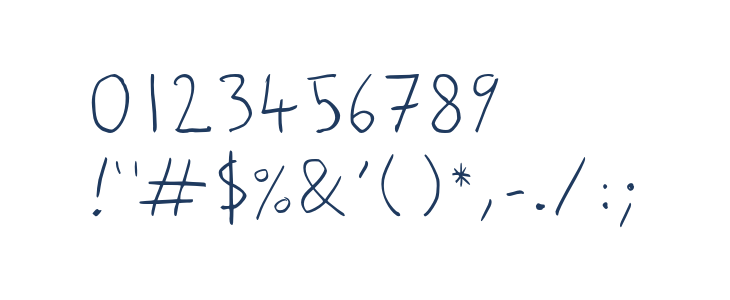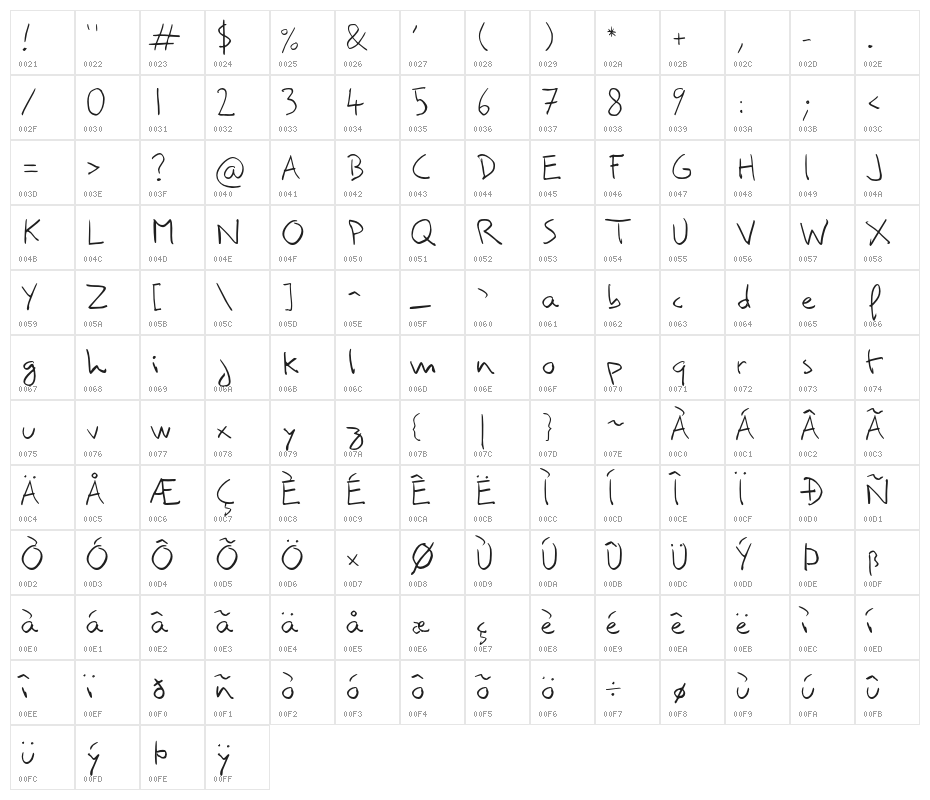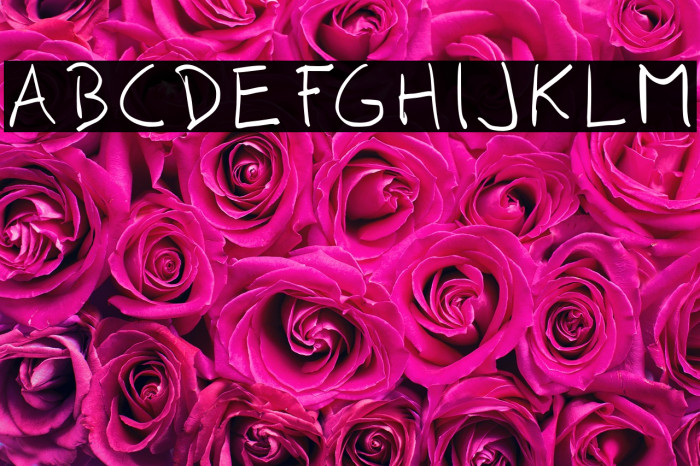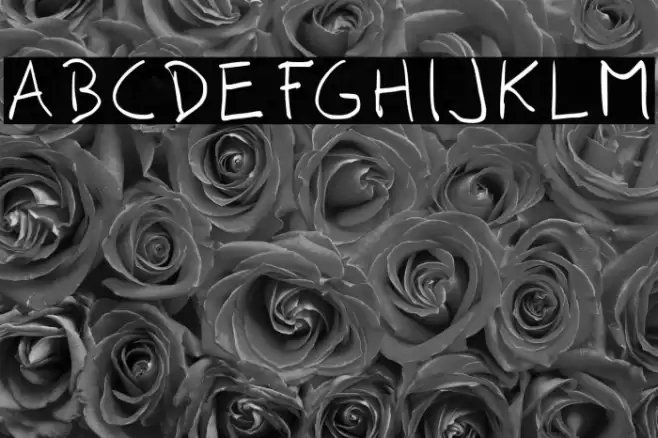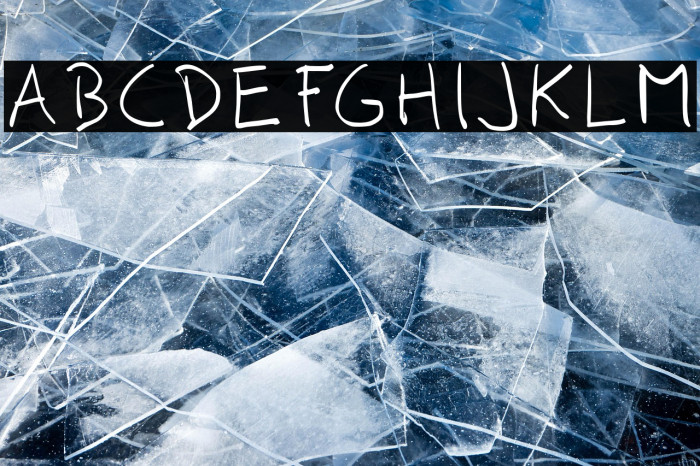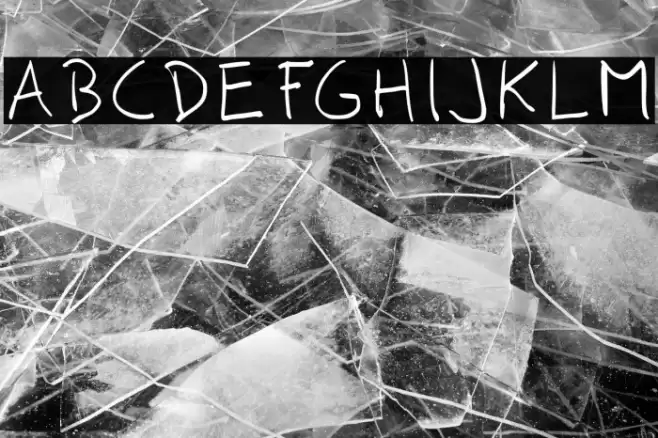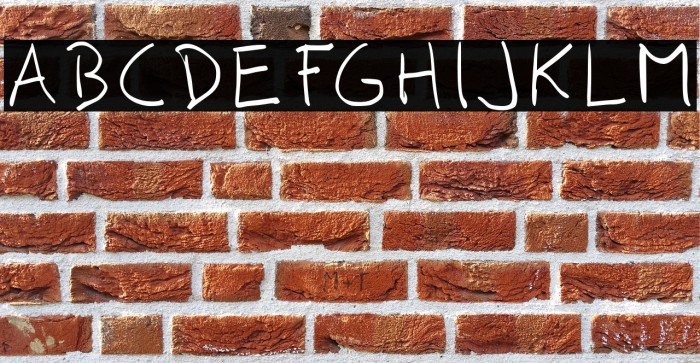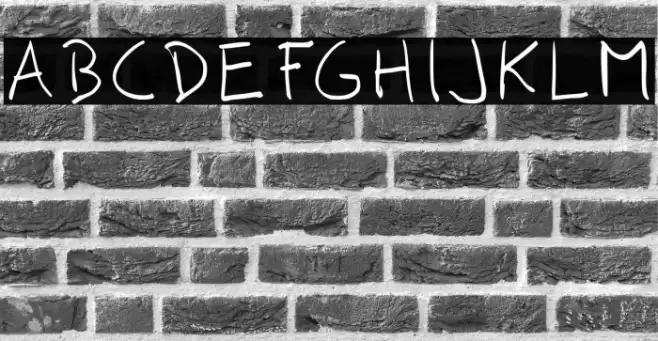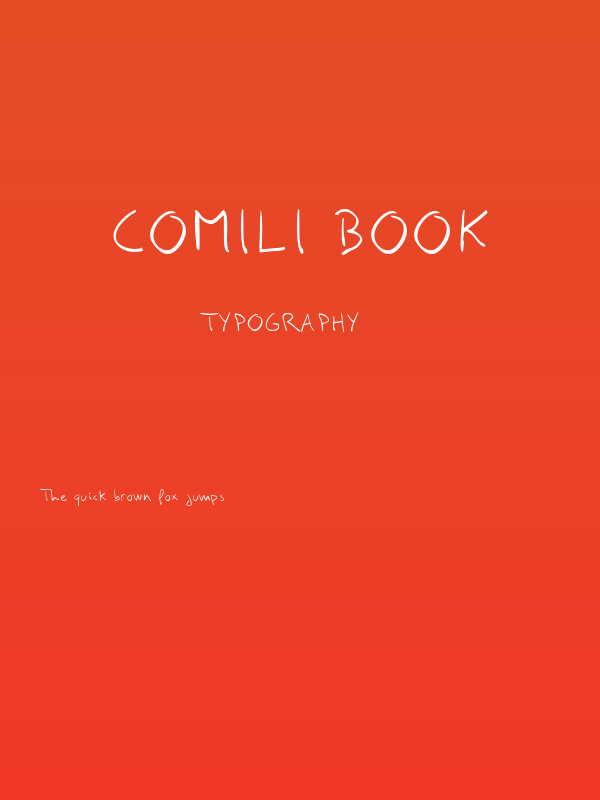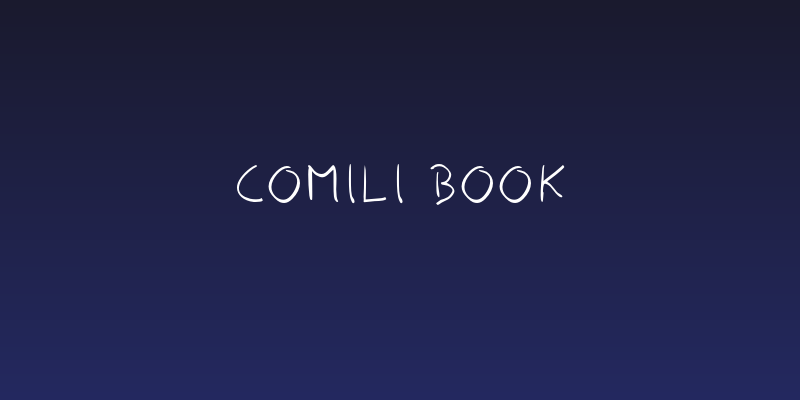
Comili Book Font
Comili Book Description
This font features a playful and informal handwritten style, characterized by its irregular and dynamic strokes. The letters exhibit a casual, freeform appearance, with varying heights and angles that give it a lively and spontaneous feel. The uppercase and lowercase letters maintain a consistent flow, while the numerals and special characters complement the overall aesthetic with their quirky and unique forms. This font exudes a sense of creativity and personal touch, making it ideal for projects that require a humanistic and approachable vibe.
| Overall Style | Casual, Creative |
| Use Case | Logos, Invitations, Personal Notes |
| Proposed Projects | Ideal for greeting cards, personal notes, creative branding, and casual invitations. |